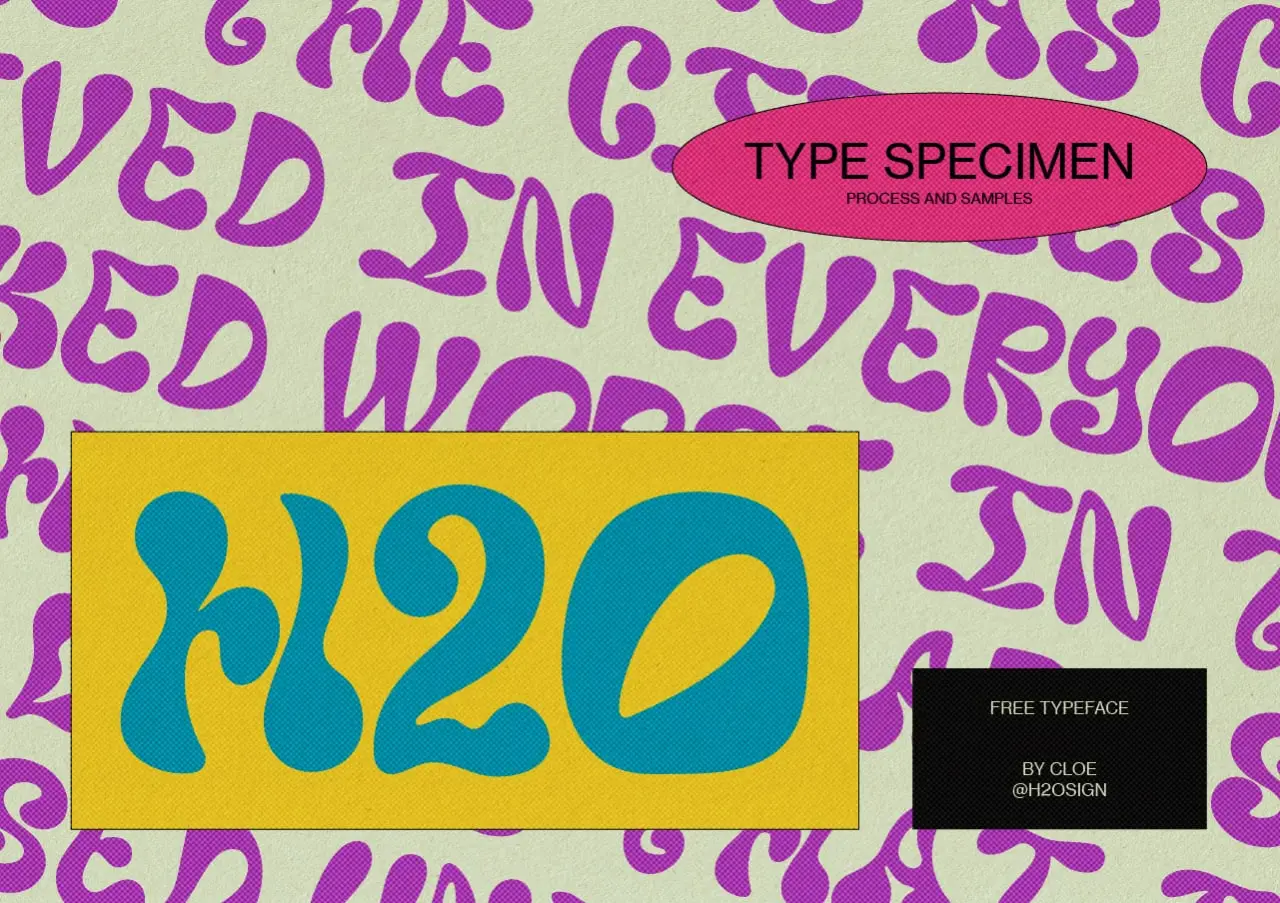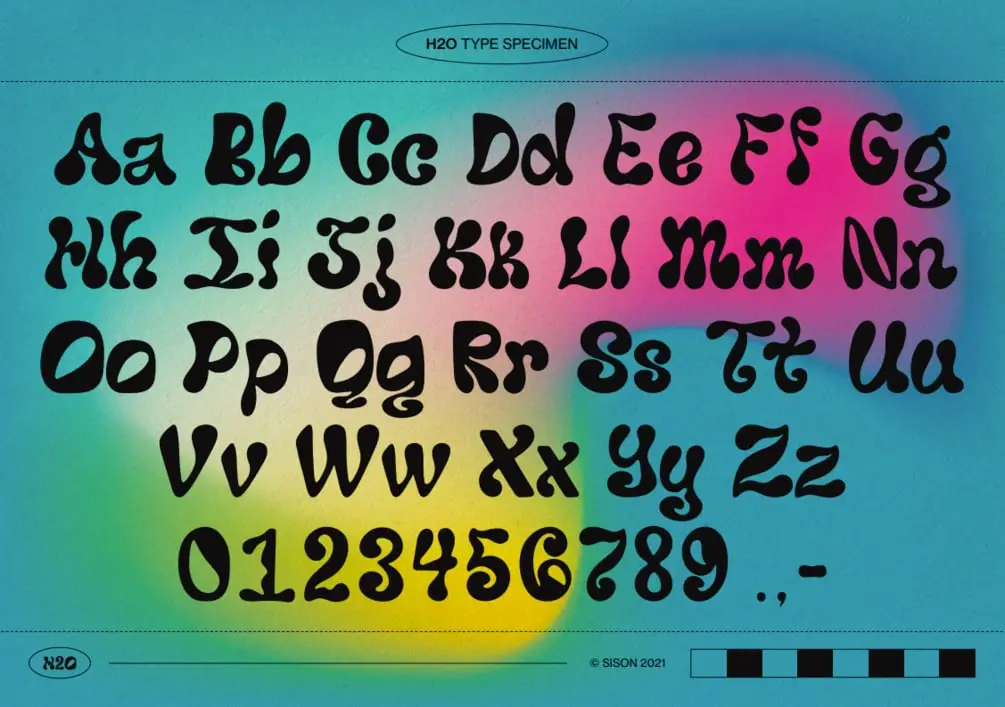
H2O Display-Free Typeface By Cloe
The H2O Display-Free Typeface by Cloe is a modern and versatile font designed to elevate your design projects. With its unique character shapes and clean lines, this typeface is perfect for a variety of applications including branding, logos, web design, print materials, and user interfaces.
• Stylish display font
• Uppercase and lowercase characters
Utilize the H2O Display-Free Typeface for eye-catching headlines, promotional materials, and digital content to make a lasting impression.